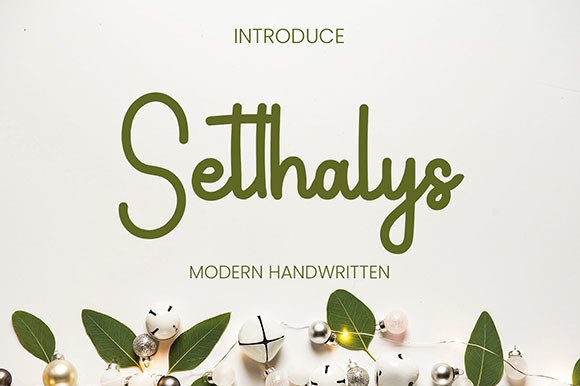
Take your breath away with Setthalys Font, a mystical script font born from artistry and elegance. Immerse yourself in its exquisite curves, flowing lines, and mesmerizing allure. Let Setthalys ignite your creative spark and transform ordinary words into extraordinary pieces of art.
Step into a realm of enchantment where letters dance gracefully upon the page, carrying your message with an air of sophistication. Setthalys is not merely a font; it's a gateway to a world of beauty and wonder, where your vision takes center stage. Embrace the magic of Setthalys, and let your words captivate and inspire.
With Setthalys, you'll discover a world of possibilities. Its delicate, handwritten strokes add a personal touch and a touch of flair that elevates your projects to new heights. Whether you're crafting heartfelt Instagram posts, designing captivating logos, or creating beautiful wedding invitations, Setthalys is your perfect companion.
Imagine your words adorned in Setthalys' charming embrace, drawing attention like a magnet, whispering enchantment to all who lay their eyes upon them. Let Setthalys be your muse, the catalyst that breathes life into your creative endeavors.
The Setthalys Font is an exquisite adornment for any design project. Its versatility knows no bounds, accommodating your every creative whim. Whether you seek to create a timeless quote tattoo that expresses your deepest musings, design eye-catching posters that demand attention, or add a touch of elegance to your digital creations, Setthalys will never let you down.
Indulge in the beauty of Setthalys, and let your imagination run wild. Transform your creative visions into magnificent realities, leaving a lasting impression on all who behold them. Embrace the magic of script and let Setthalys guide you on an artistic journey like no other.